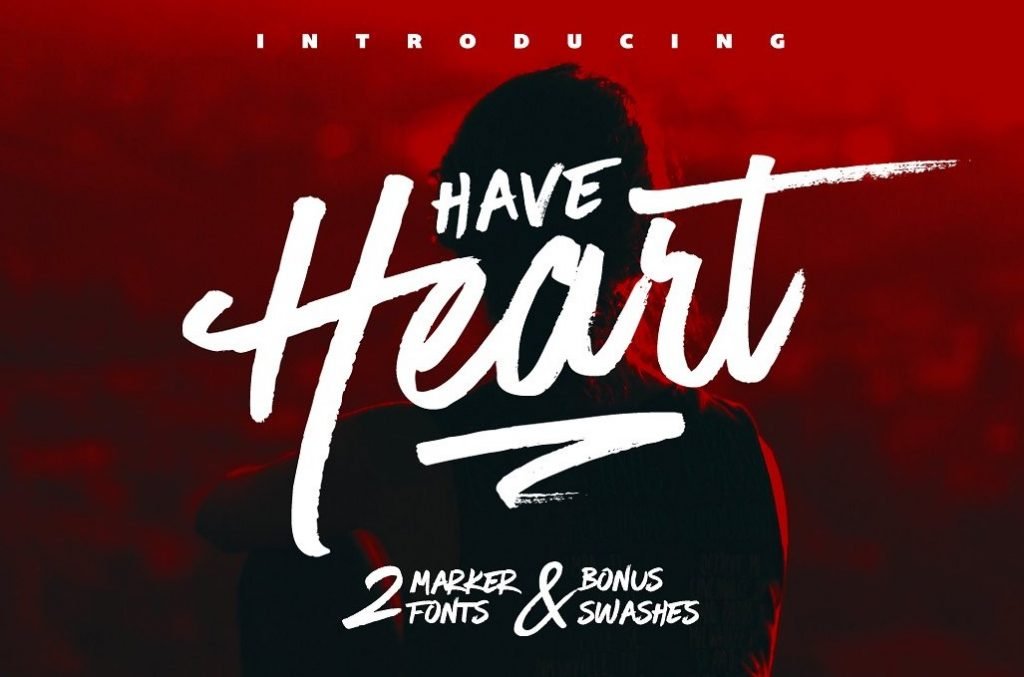
Here we are introducing the Have Heart Script Font designed by Sam Parrett. This script typeface is the ideal choice for your ongoing graphic design projects.
In the making of this typeface, two hand-made pen fonts combination is used that is specially created for the purpose of allowing the designer to create a great design using this typeface with the cambria font.
The font family of this typeface consists of 12 bonus swashes. This is known as a single typeface that comes with over 250 glyphs that are great for their text generation function also available here for free download.
This typeface gathers so much popularity in such a short period of time because of the unique and handwritten that this typeface provides to the design when used with herculanum font. This will definitely enhance your design.
View of Have Heart Script Font
Before moving ahead, let’s have a look at the appearance of this font that how does it will appear when you apply it to your graphic design.
Have Heart Script Font View
Due to its clean and clean texture, you may easily use this outstanding font for the ambitious heading, ebook covers, brand designs, cloth printing, official cards, precise emblems, and so on.
What Is Have Heart Script Font?
Have Heart Script font is a graphic design typeface that we can use in videos, brochures, etc.
Which Type of Font Is Heart Script Font?
Have Heart Script is one of the best script fonts that is designed and presented by Sam Parrett. It’s one of the most liked fonts on the web.
What’s the Closest Typeface to This Font?
The Swash is very close to the Have Heart Script font.